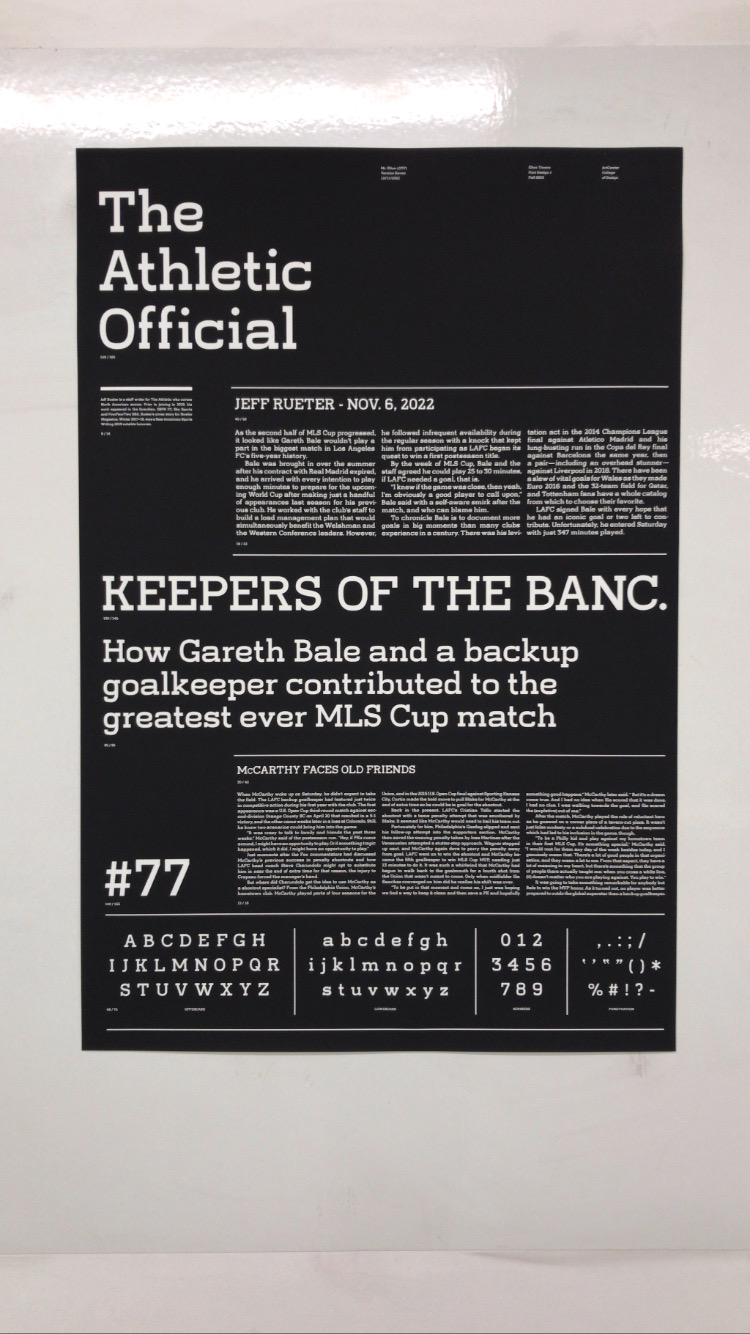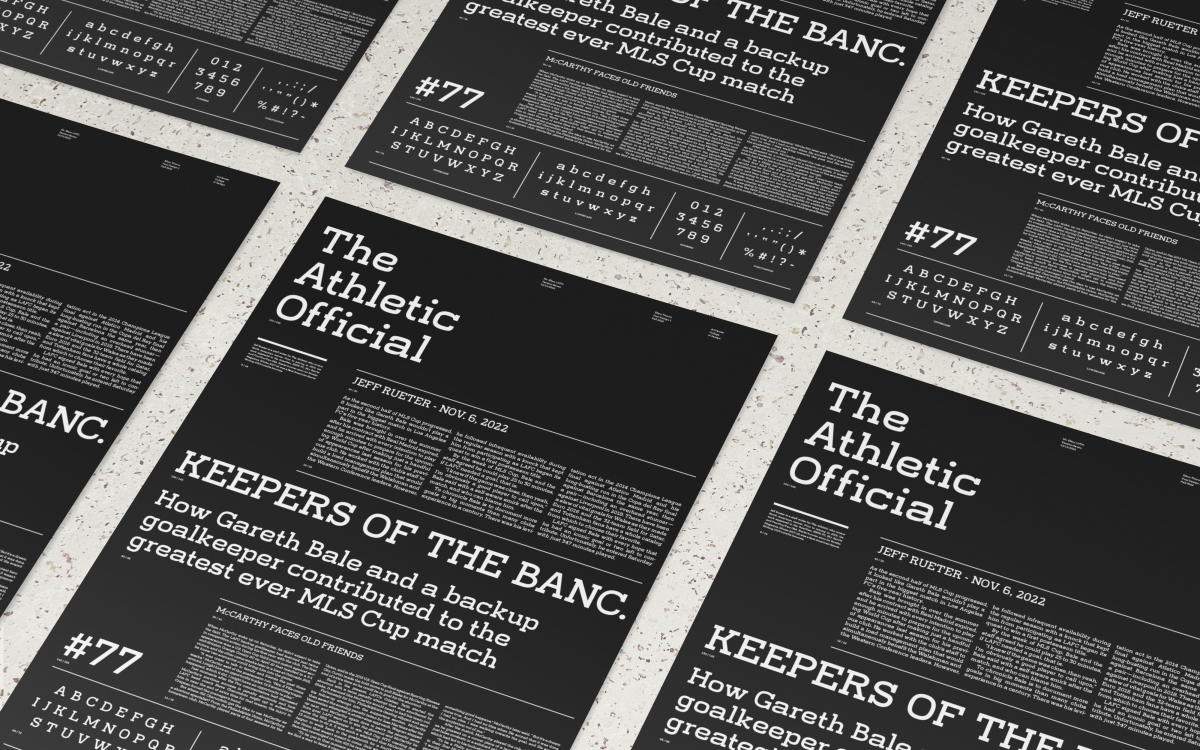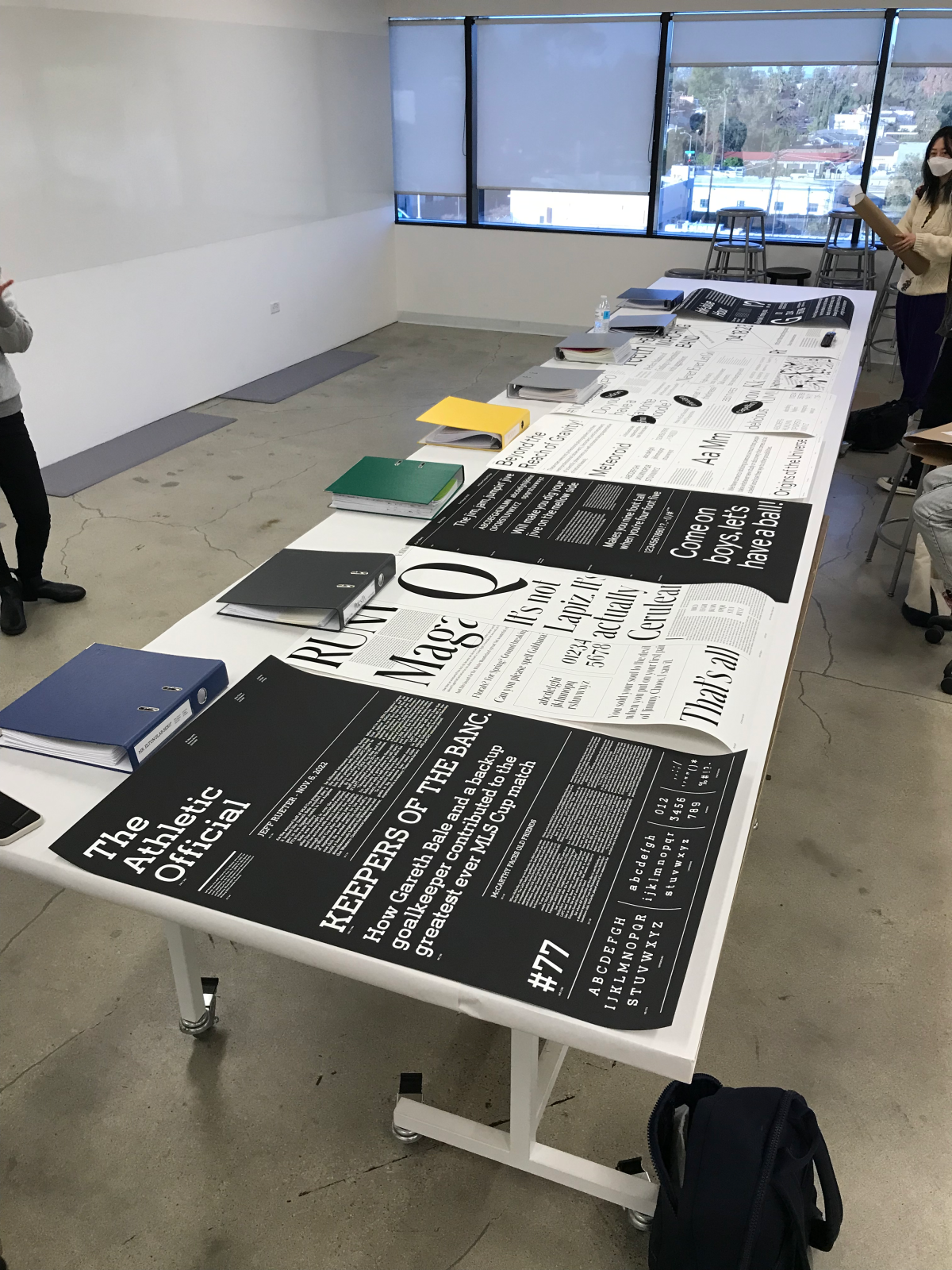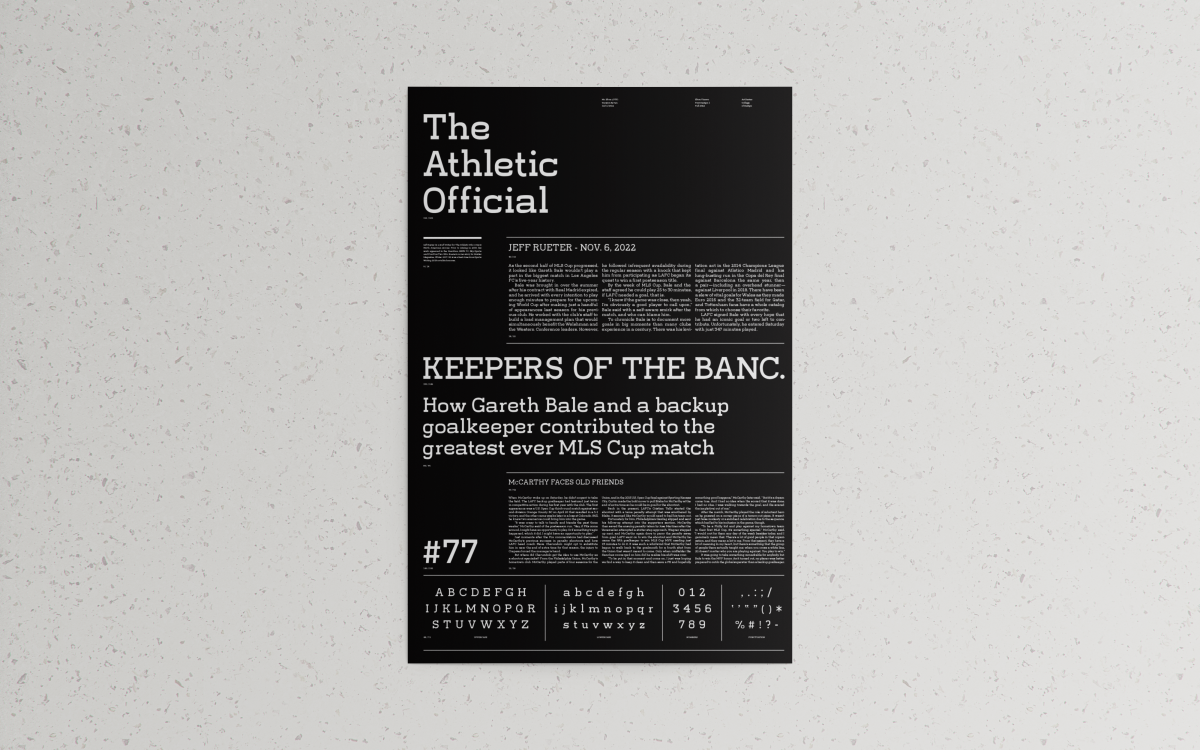
Elton Tinoco
Mr. Elton [Slab Serif Typeface Design]
Mr. Elton, is a Slab Serif typeface designed by and named after myself. It is inspired by sports typography. Originally it was inspired by the letterforms of the Los Angeles Dodgers hat insignia. As research progressed the custom typeface created for The Athletic, an online sports website, served as the foundation for this font. The typeface is featured in a bold weight.